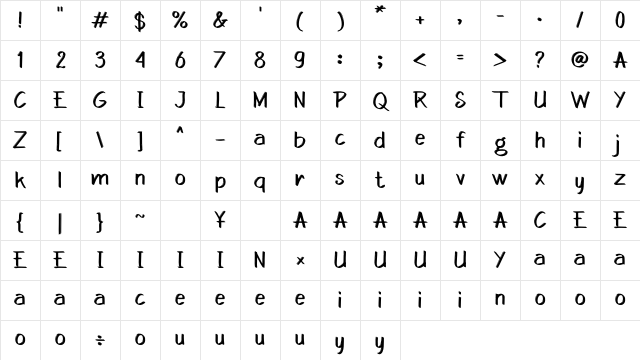
Building Victory Regular Free Font
Building Victory Regular
Foundry: Studio Hello Good
Designer: Rachmad Bagus Ftachi
Design Context for Building Victory
Building Victory is a composed and adaptable typeface that performs quietly and consistently across a wide range of design contexts.